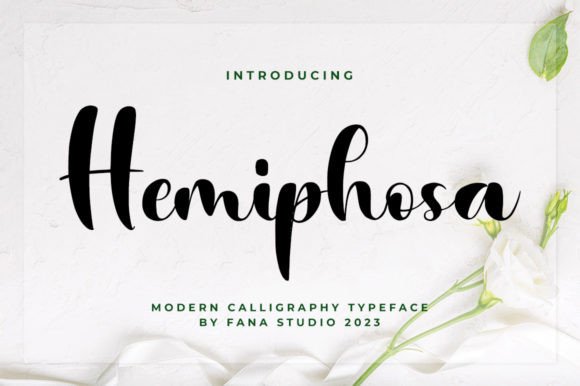
Dive into the world of Hemiphosa Font, a script masterpiece that will elevate your designs to new heights. Crafted by the skilled hands at fanastudio, Hemiphosa is a captivating handwritten font that seamlessly blends classic calligraphy with a modern twist.
Indulge in the beauty of Hemiphosa's graceful curves and delicate strokes. Each letter dances across the page, expressing emotions and adding a touch of elegance to your creations. Whether you're a seasoned designer or just starting out, Hemiphosa is the perfect font to add a personal touch to your projects.
Step into the spotlight with Hemiphosa, the ultimate font for Linkedin banners. Make a bold statement and capture the attention of your audience with this font's captivating charm. Let your words flow effortlessly, leaving a lasting impression that will set you apart from the crowd.
With Hemiphosa, creativity knows no bounds. Whether you're designing logos, branding materials, or social media posts, this font will effortlessly elevate your work. Its versatility extends to invitations, wedding stationery, and even handwritten notes, adding a touch of sophistication to every occasion.